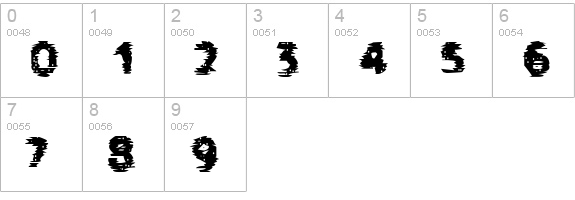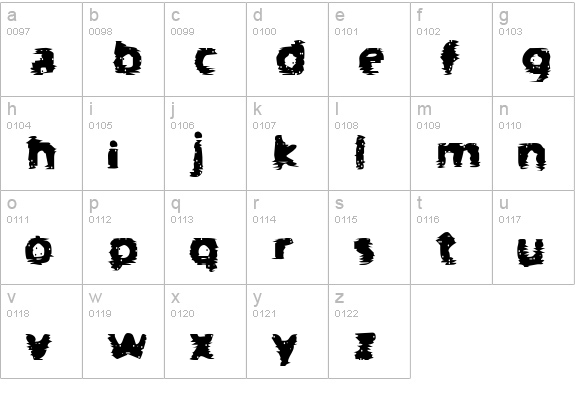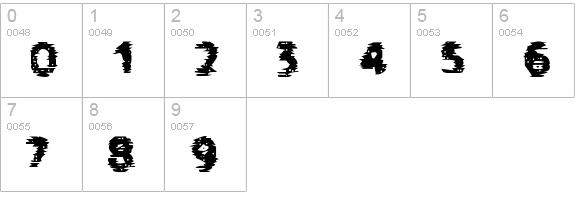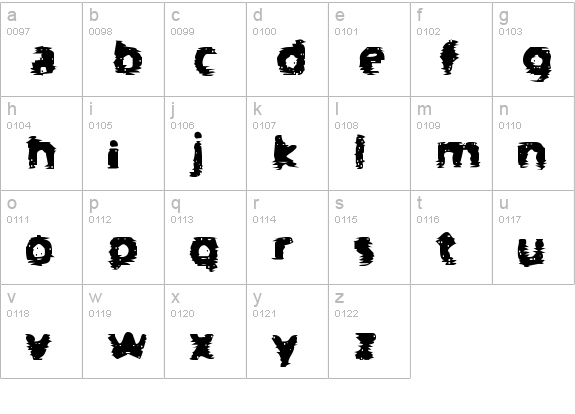
BN-Gangsters Font Details
Introducing BN-Gangsters font, a bold and menacing typeface that exudes a sense of power and authority. Crafted with sharp edges and a rugged aesthetic, this font is perfect for projects that require a strong and impactful presence. Inspired by the gritty world of gangsters and crime, BN-Gangsters font captures the essence of danger and rebellion. Its bold letterforms demand attention and make a bold statement wherever they are used. Whether you're designing posters, logos, or branding materials, BN-Gangsters font will add a touch of edginess and attitude to your designs. Its unique style sets it apart from other fonts, making it a perfect choice for projects that require a bit of an edge. Best of all, BN-Gangsters font is completely free to download at FontsMarket.com. So go ahead and add this powerful and striking font to your collection today!